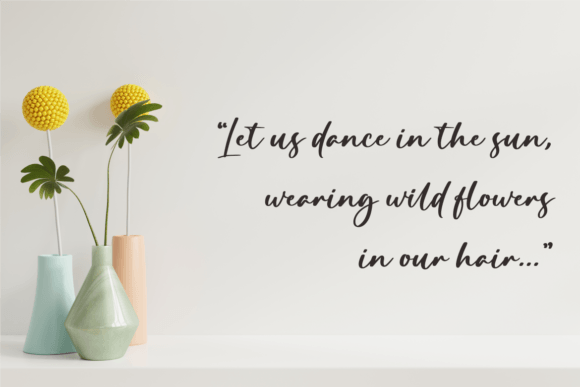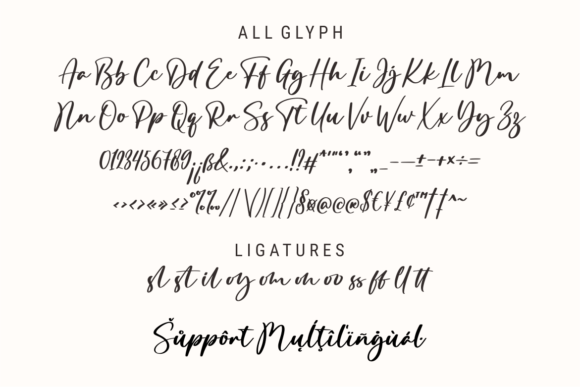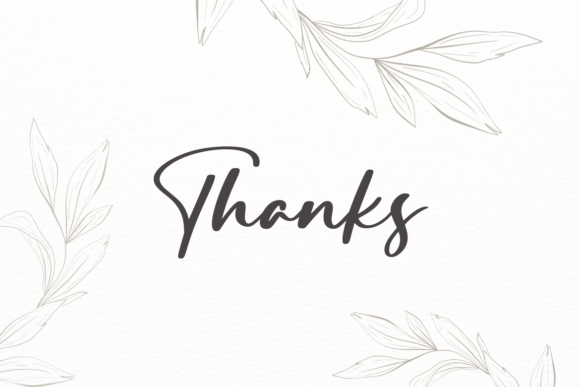
Greatday Font
Greatday is a stylish, modern, and elegant script font, suitable for a wide spectrum of applications, from greeting cards to headlines and many more. This font will guarantee a romantic touch to each of your creations!